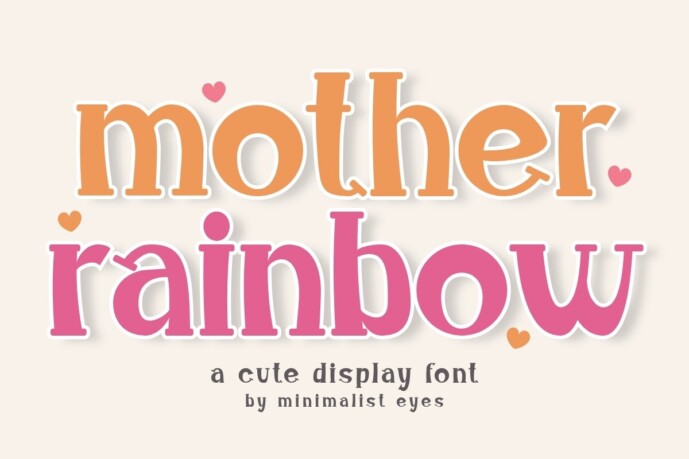
Mother Rainbow Font
Designer: Minimalist Eyes
Mother Rainbow is a bold and cute display font. The wide characters and chunky serifs make this font ideal for eye-catching designs. You can use it for headlines, poster, packaging, merchandise, quotes, t-shirt typography,Mother Day’s quotes, banners,Valentine Day’s, product labels, and many more.